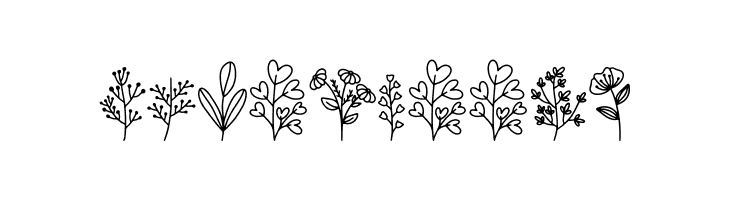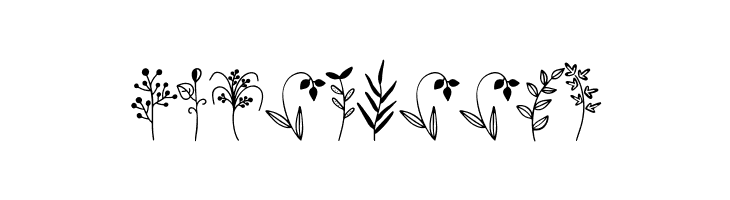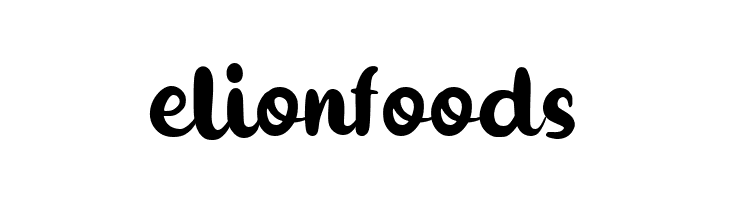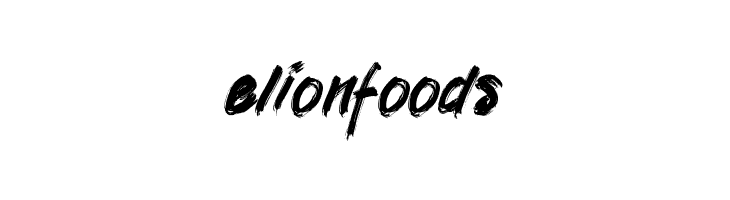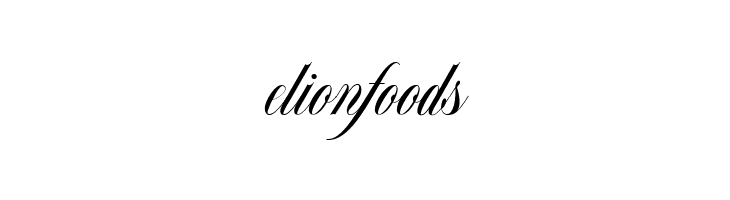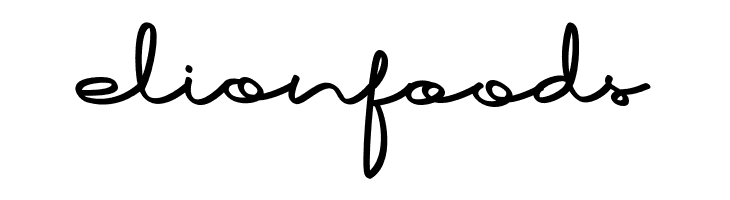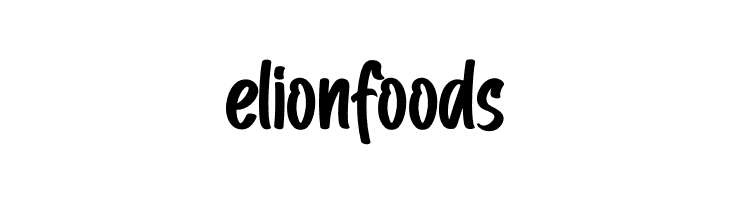
• HeavenWandersDEMO
A whimsical and artistic font with tall, narrow letterforms and playful strokes.
• Heisenberg
A dynamic, expressive handwritten font with fluid strokes.
• Hello Angeline
An elegant, flowing script font with a handwritten appearance.
• hello baby
A playful, handwritten font with bold, rounded strokes and a lively appearance.
• hello baby Italic
A bold, italicized script font with a playful, handwritten style.
• Hello Bear Script
• hello chamelia
A flowing, cursive font with elegant, sweeping lines and artistic flair.
• hello chamelia Italic
A flowing, cursive font with elegant, sweeping strokes and an italic slant.
• Hello Darling
A playful, handwritten font with smooth, flowing strokes and a whimsical charm.
• Hello December
A playful and elegant script font with a handwritten style.
• Hello December Italic
A charming, elegant handwritten font with fluid, cursive letterforms.
• HELLO GIRAFFE
A playful, hand-drawn font with a whimsical, cartoonish style.
• HELLO GIRAFFE
A playful, hand-drawn font with bold, rounded characters and a whimsical style.
• HELLO GIRAFFE Italic
A bold, italic font with a playful and dynamic style.
• HELLO GIRAFFE Italic
A bold, italic font with a playful and dynamic style.
• Hello Glow
A lively and expressive script font with fluid, cursive strokes and varying thickness.
• Hello Gorgeous Print
• Hello Juliademo
• Hello Masha
A playful and elegant handwritten script font with dynamic strokes.
• Hello Masha Italic
A cursive, italic font with elegant, flowing strokes and a handwritten appearance.
• Hello Mellinda Demo
Elegant handwritten script font.
• Hello Monogram
An ornate and decorative font with intricate swirls and circular frames around each letter.